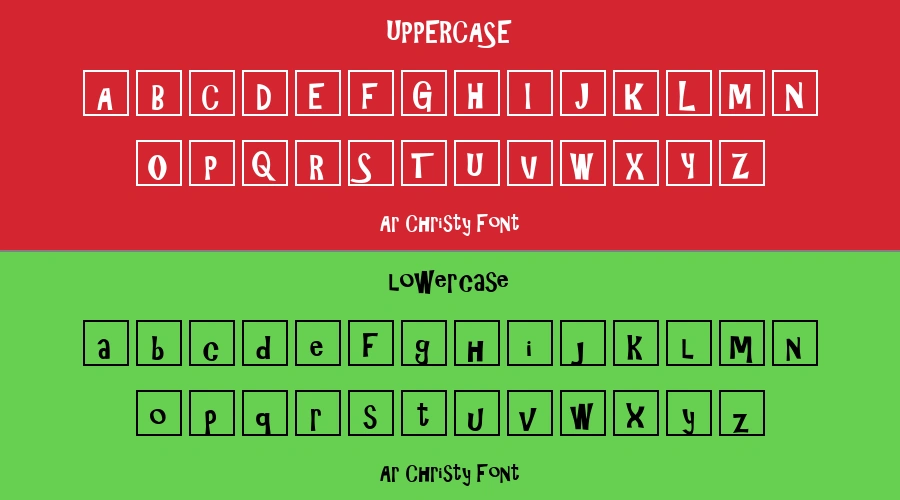
About Ar Christy Font
Ar Christy Font stands out for its distinctive combination of playful elements and textural richness. Ideal for presentation decks, it provides the precision and creative impact that professional projects demand. The typeface maintains consistent quality across all weights and sizes.
Key features include refined modular forms and practical currency signs, enhancing typographic expression. In classic layouts applications, Ar Christy Font demonstrates exceptional consumer preference. The stem weight and institutional acceptance contribute to its distinctive character and professional appeal.